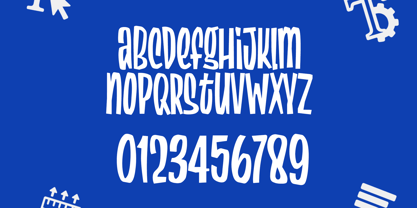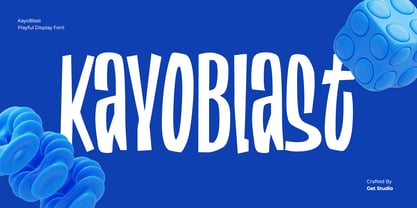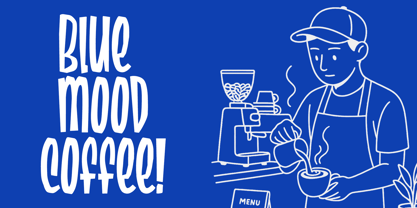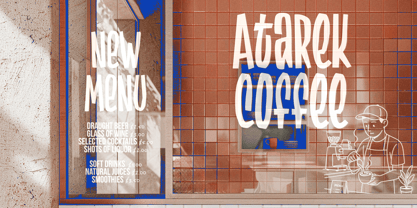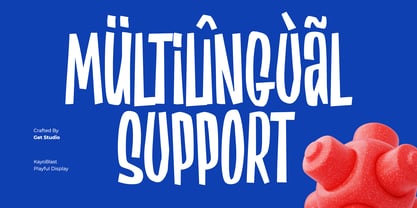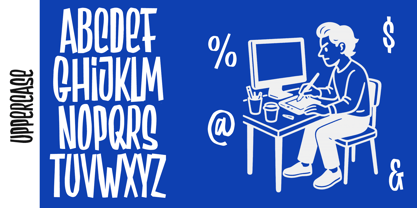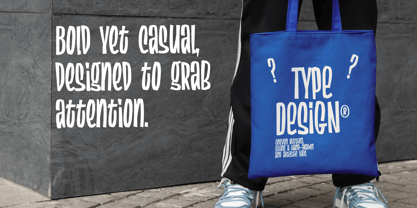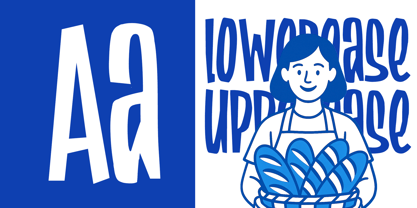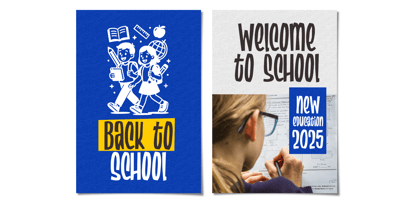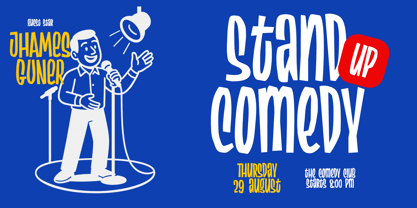
Kayo Blast
by Get Studio
The Kayo Blast Font Family was designed by Hermansyah and published by Get Studio. Kayo Blast contains 2 styles and family package options. More about this family
Meet KayoBlast – a bold and playful display font designed to bring instant energy to your creative projects. With chunky letterforms, quirky curves, and a retro-modern twist, KayoBlast is perfect for posters, branding, merchandise, packaging, and social media graphics that demand attention.
Whether you’re crafting a fun café logo, designing event posters, or creating standout headlines, KayoBlast makes your words explode with personality. Its bold yet casual style guarantees your message won’t go unnoticed.